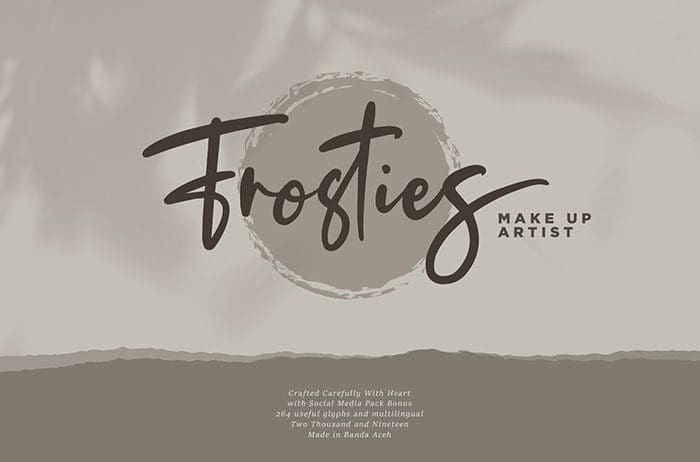
Free Fashionist Script Font
Fashionist Script Font
Free Fashionist is a casual script font with exquisite accents. It includes a full set of gorgeous uppercase and lowercase letters, numbers, a large selection of punctuation marks & ligatures and bonus Instagram Story Templates! Designed this font by Mas Anis. You can also search more freeĀ Script Fonts.